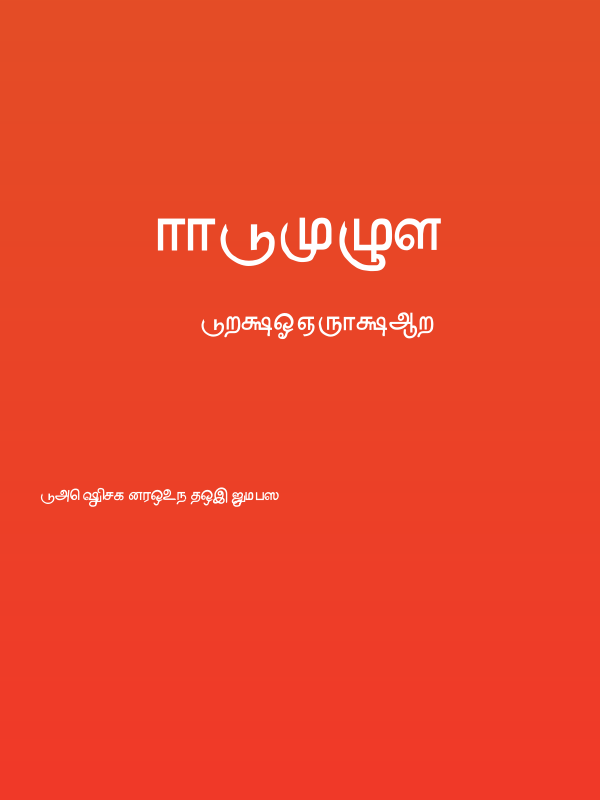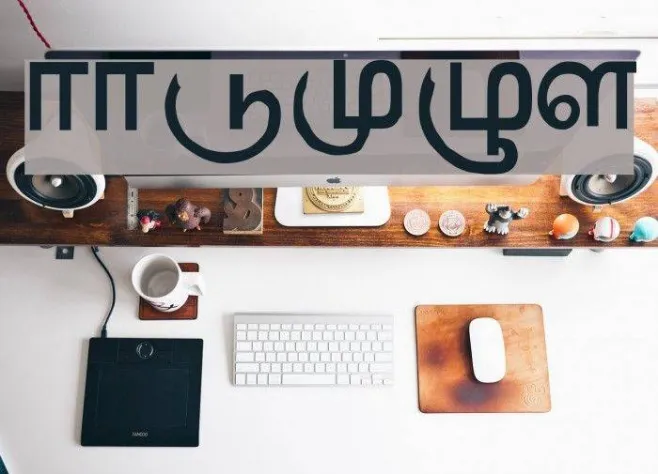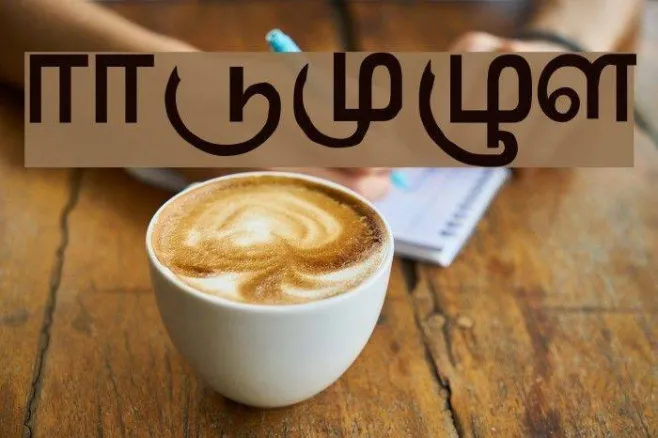
AATMZL Font
AATMZL Description
This font features a modern and clean design with a focus on readability. The characters are well-defined with a consistent stroke width, providing a balanced and harmonious appearance. The numerals are clear and distinct, making them easily legible. Special characters are crafted with precision, maintaining the overall aesthetic of the font. The spacing between characters is uniform, contributing to a neat and organized look. This font is versatile, suitable for various applications where clarity and modernity are desired.
| Use Case | Headlines, Body text, Digital interfaces |
| Proposed Projects | Ideal for use in digital interfaces, signage, and print media where clarity and modern aesthetics are important. |